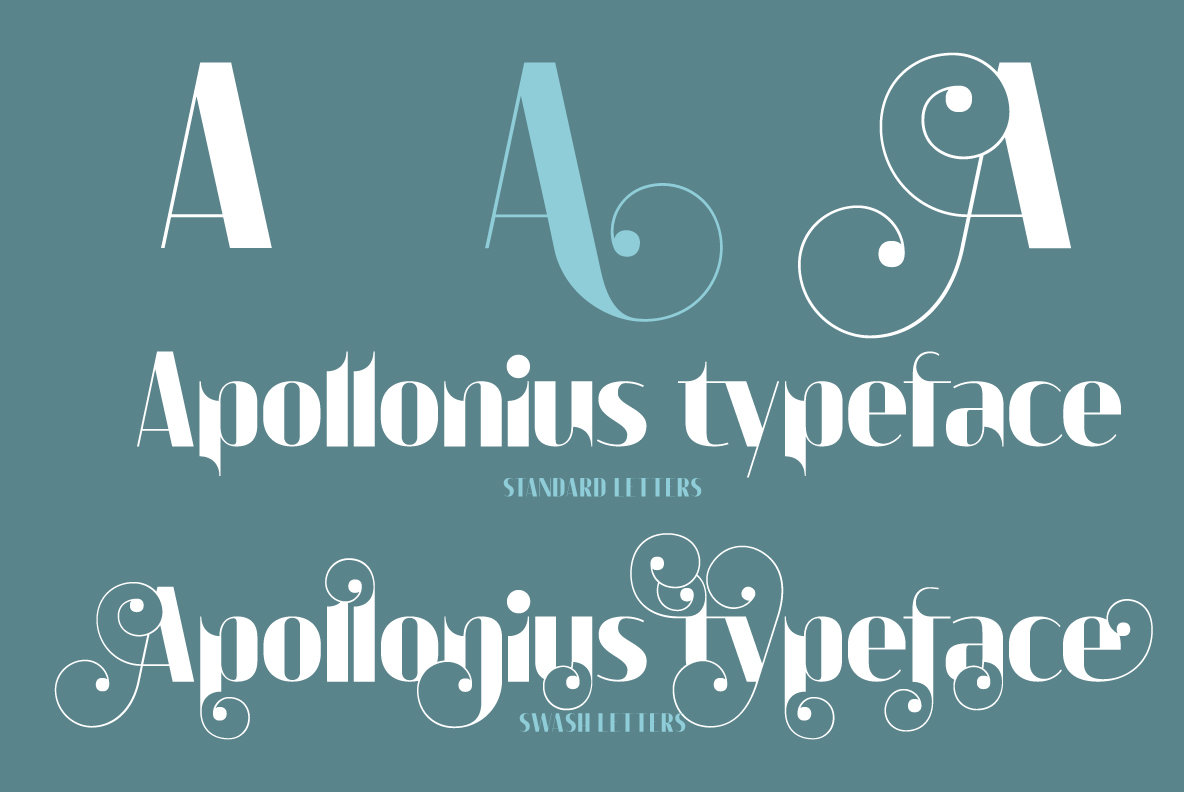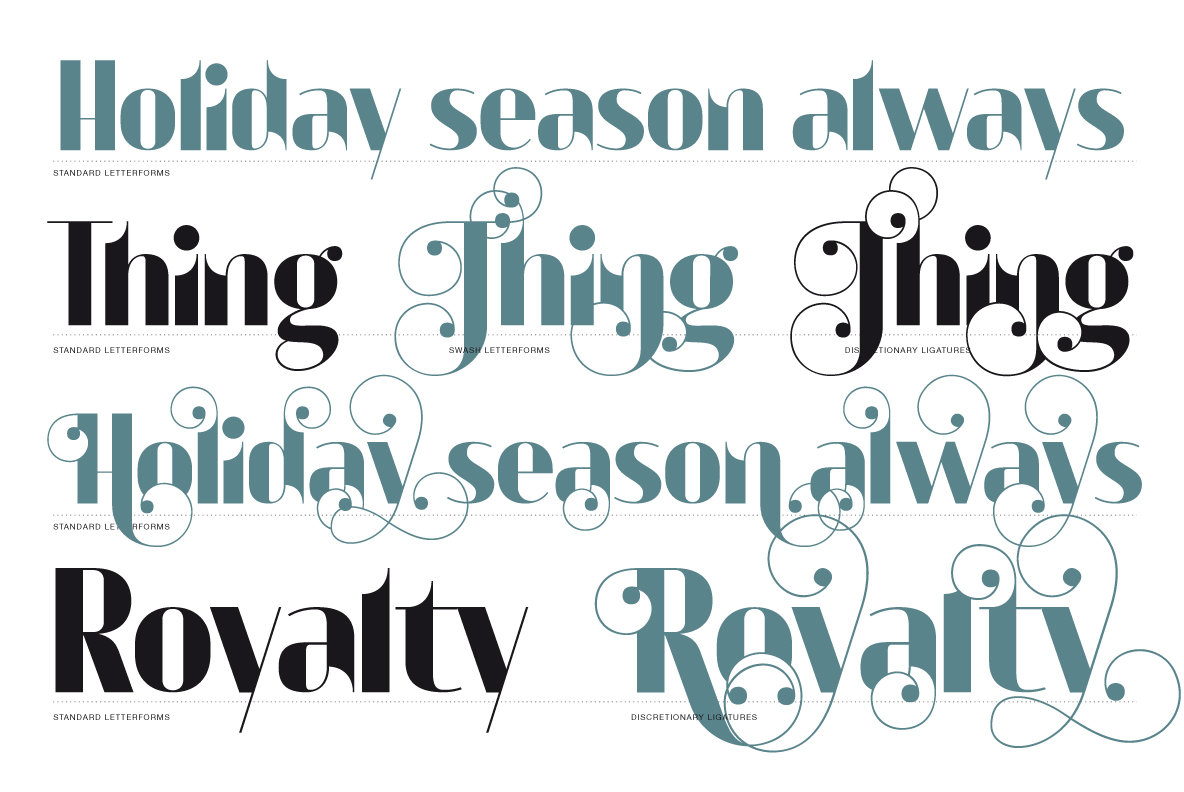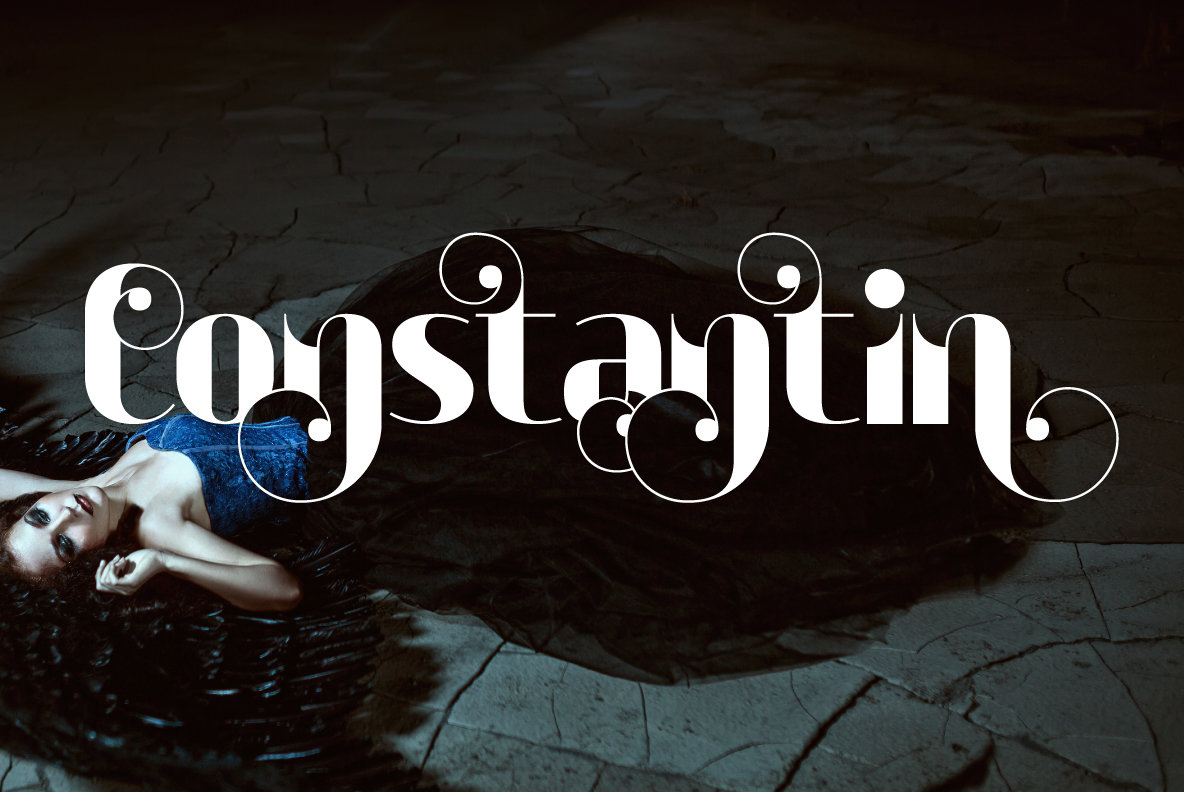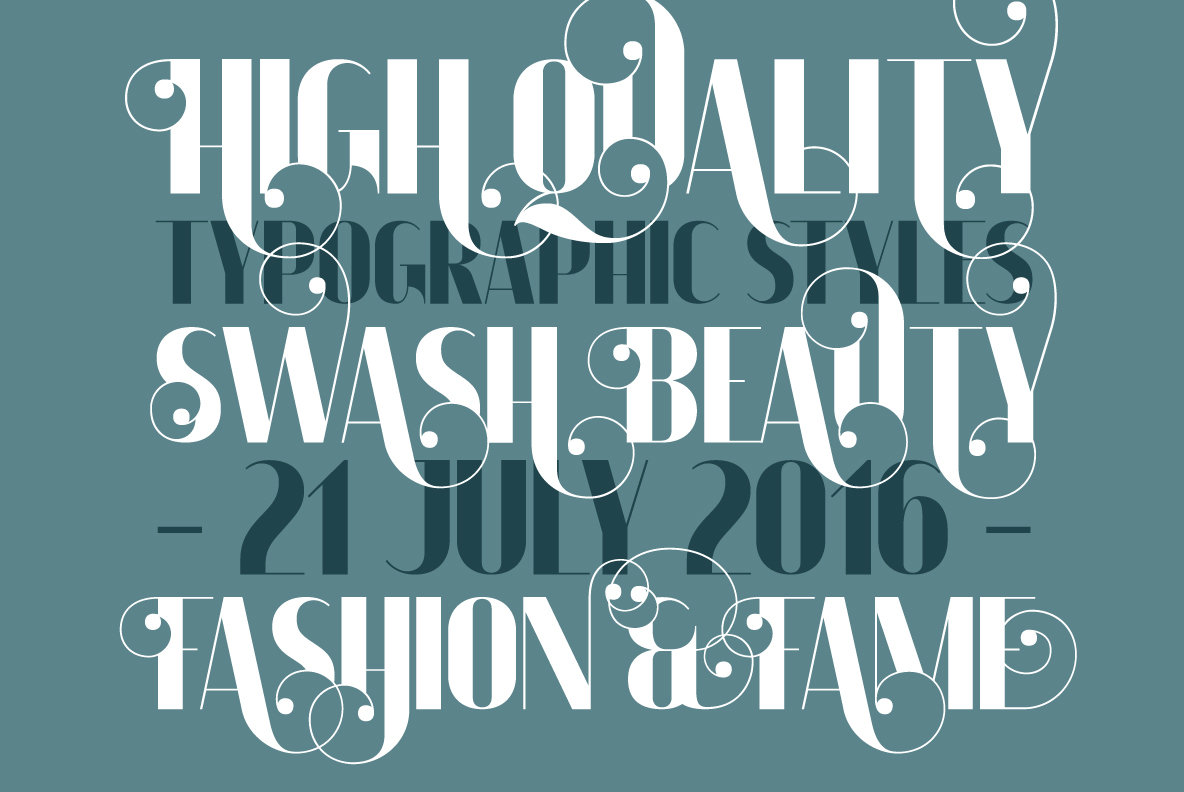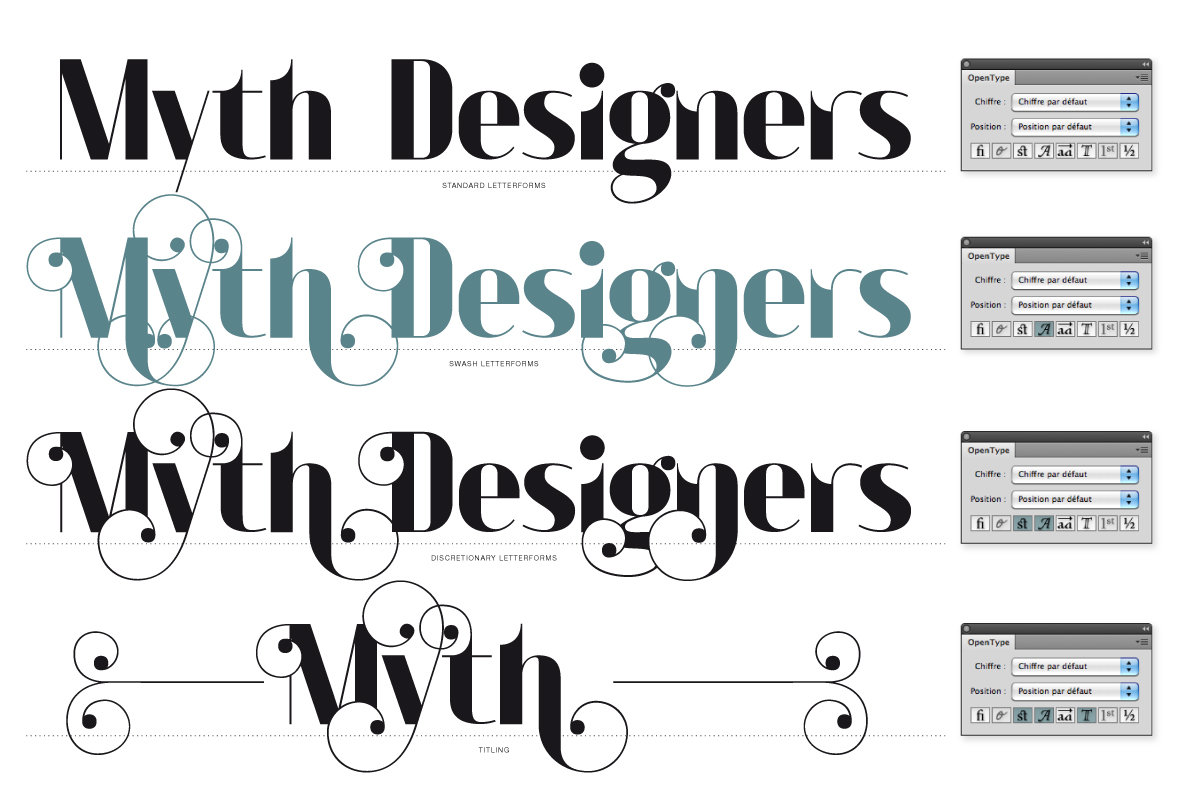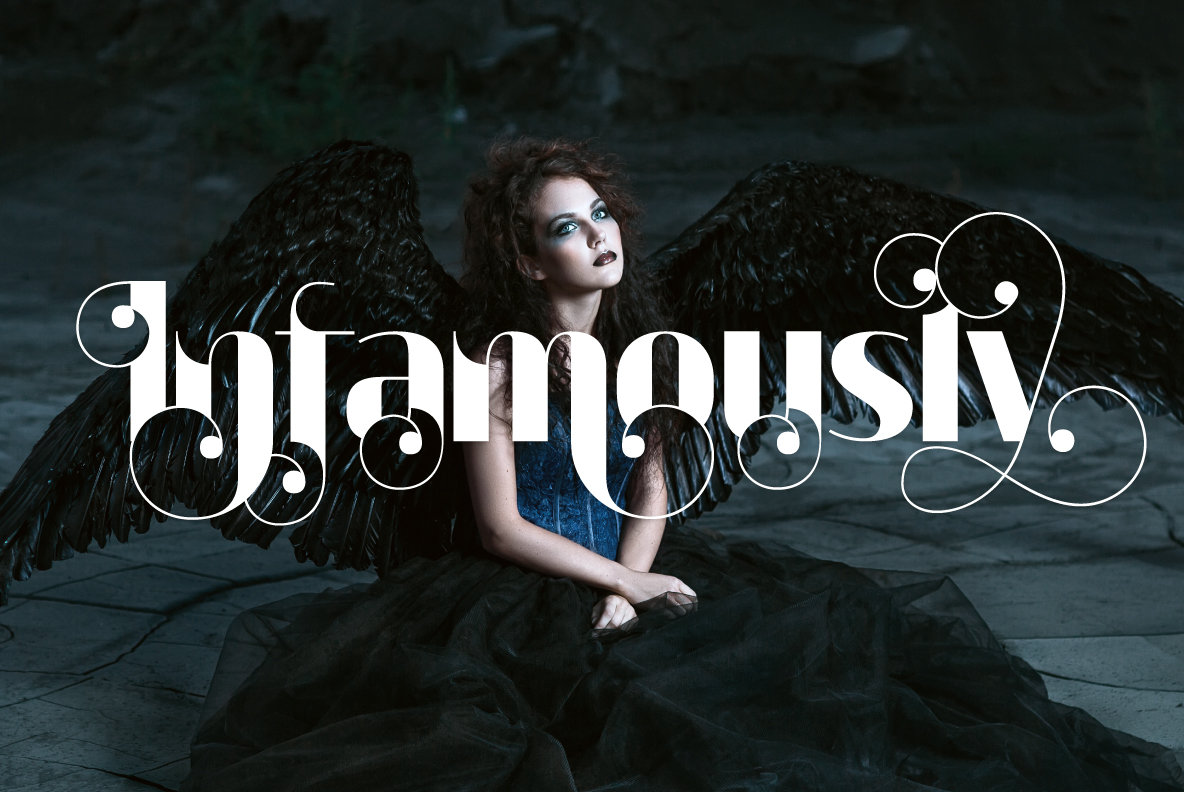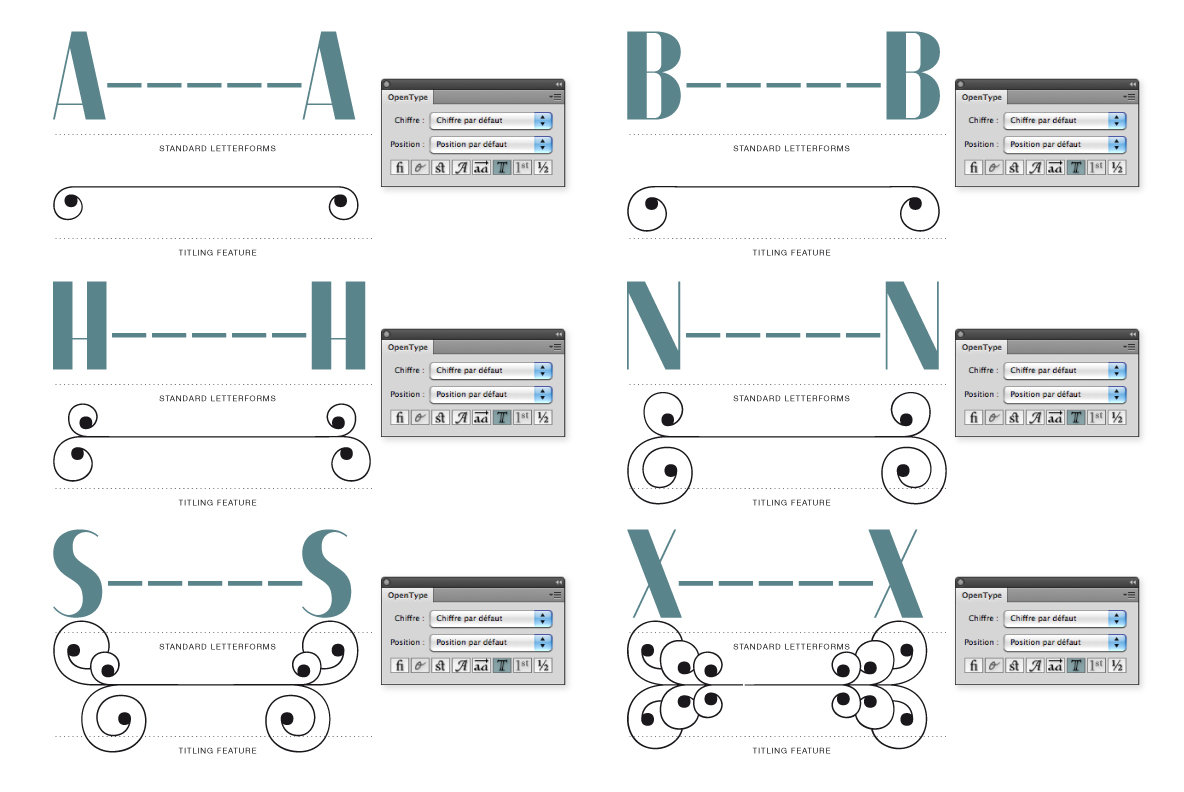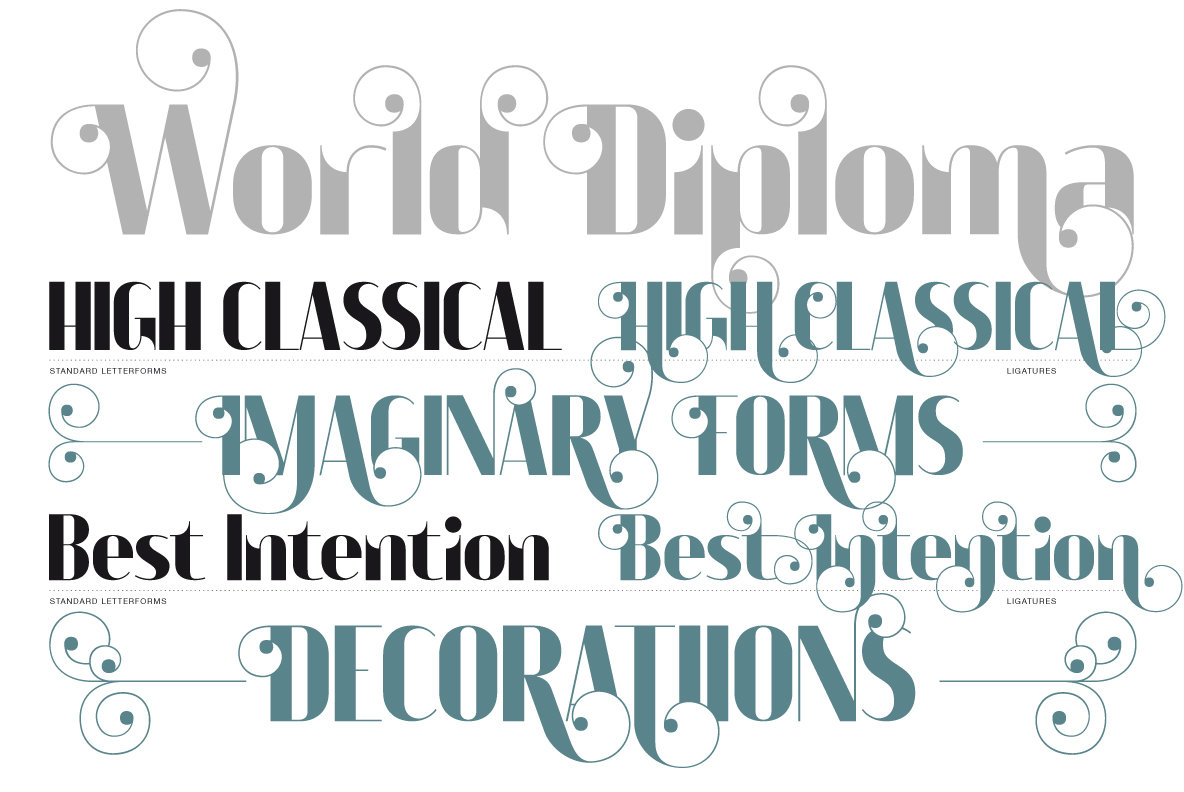
Apollonius Font
Apollonius
Apollonius is a high contrast, display typeface designed by Michael Parson. Packed with Opentype features, this single weight font offers a whole range of options that designers can explore and play with to create stunning layouts.
After completing his studies in Switzerland, Michael Parson set up an independant graphic design studio in Geneva in 2002, focused on typography and illustration.Since then, he has worked in a wide range of medias and projects as well as releasing a series of typeface designs with Linotype, T26 and YouWork...